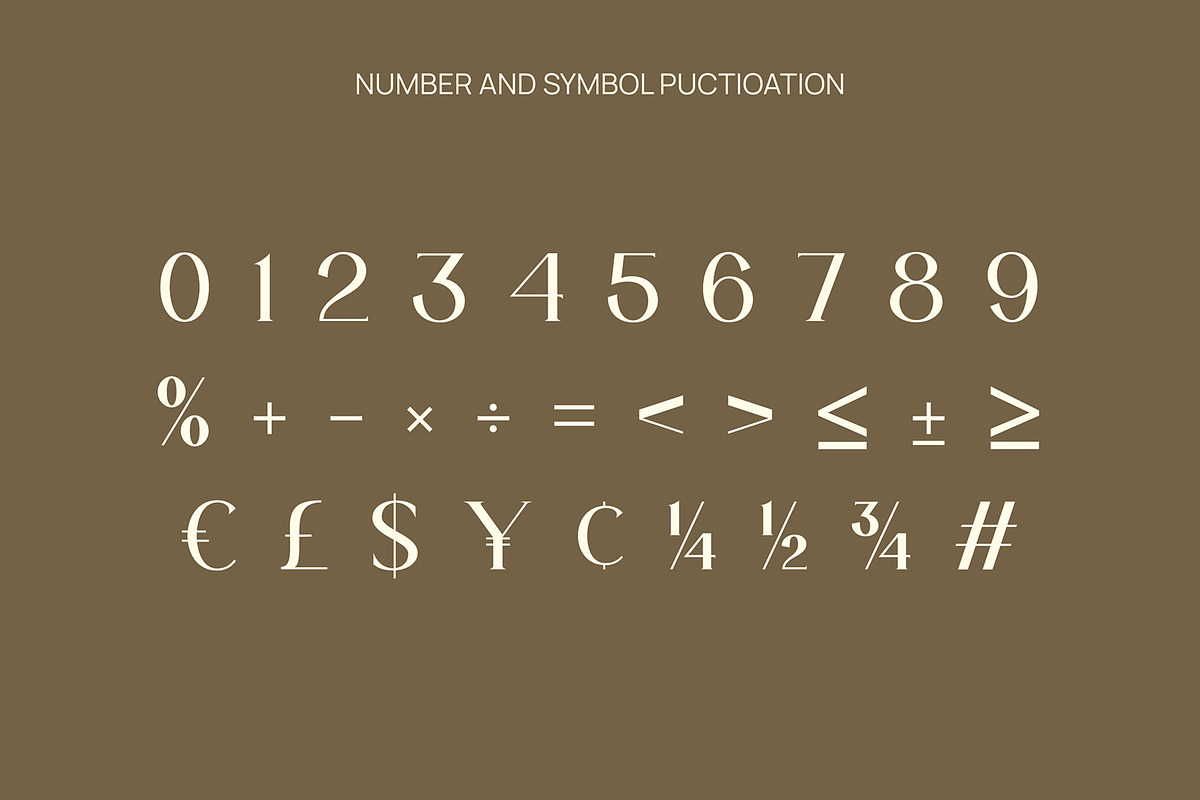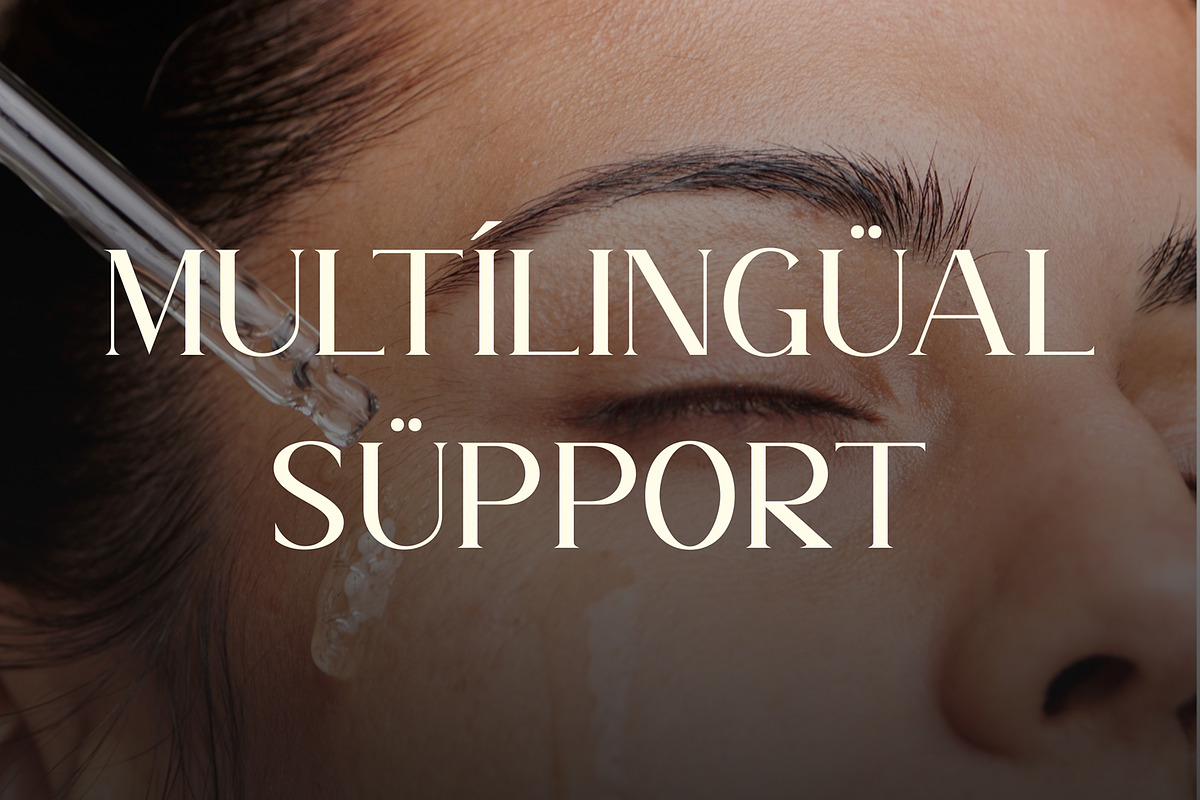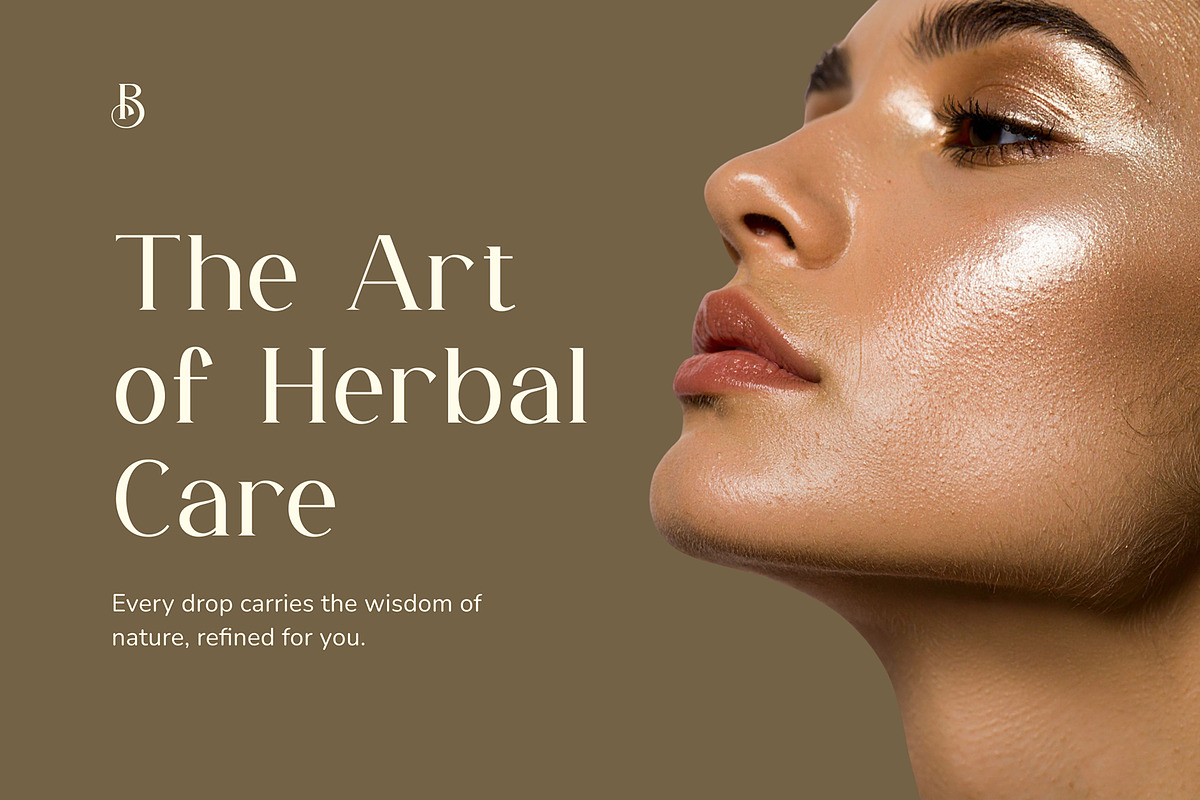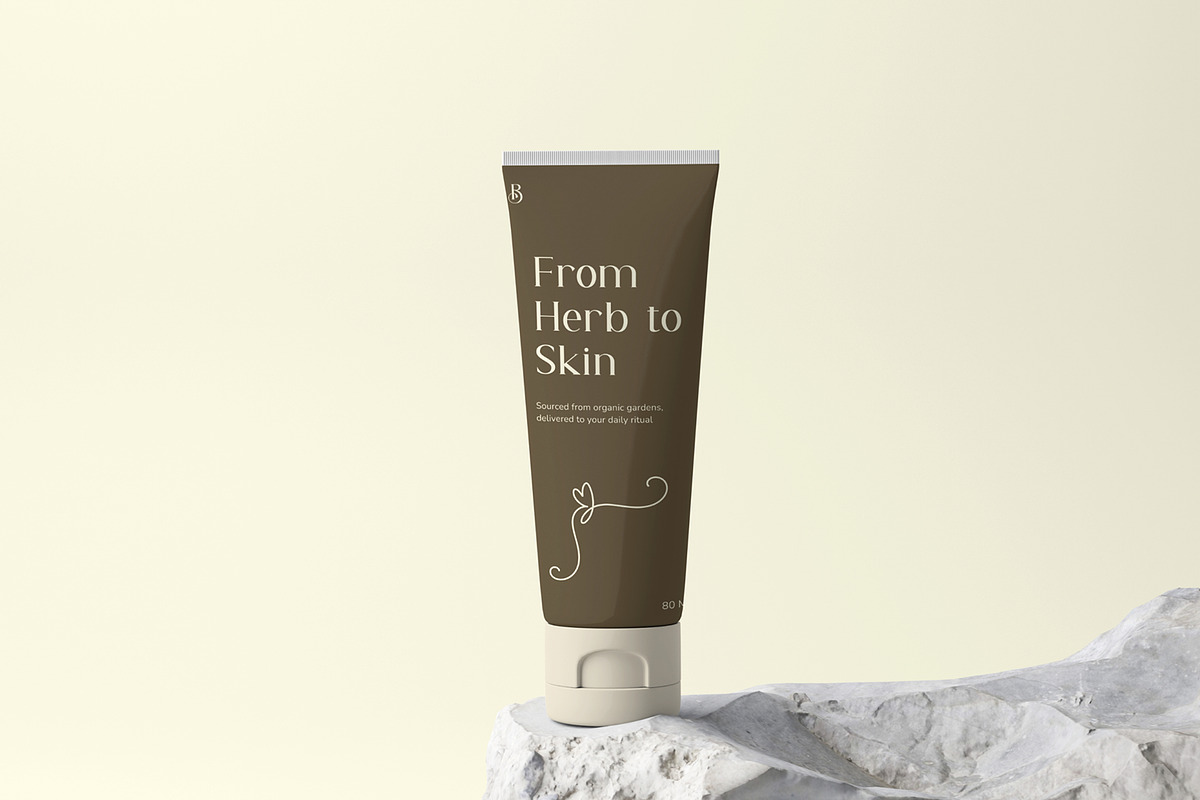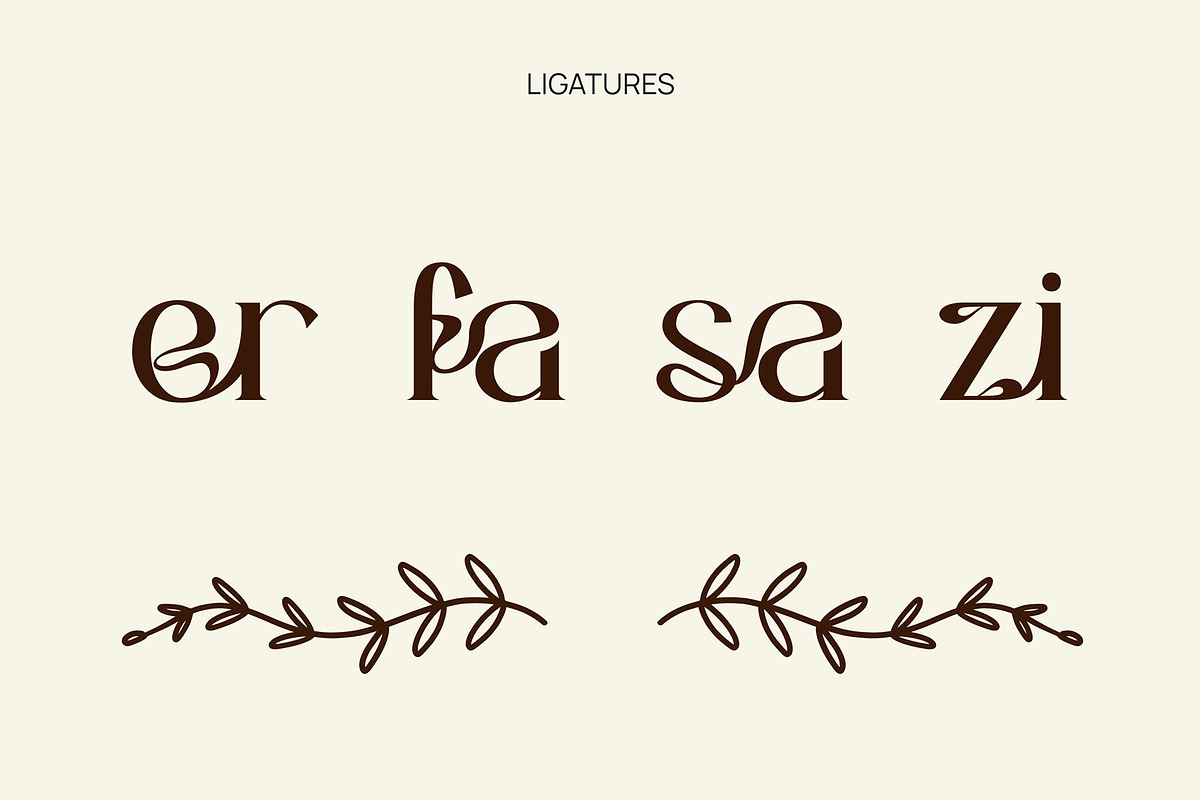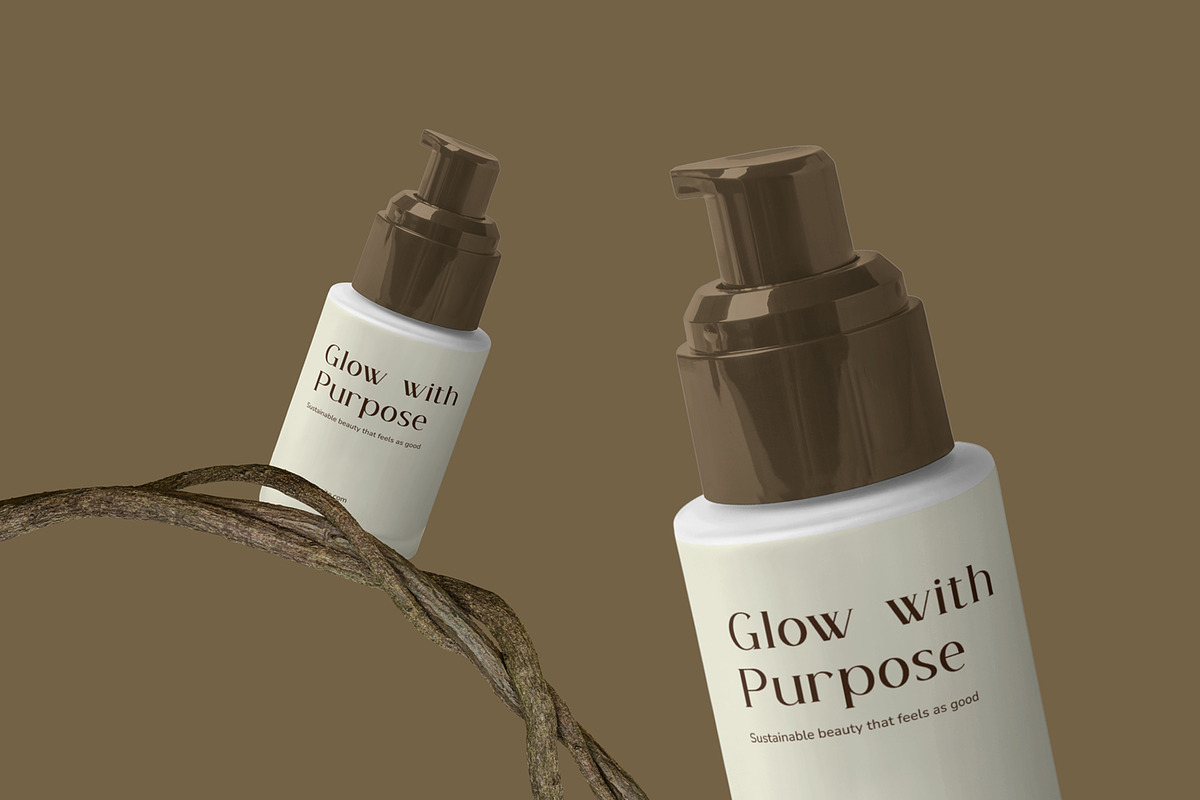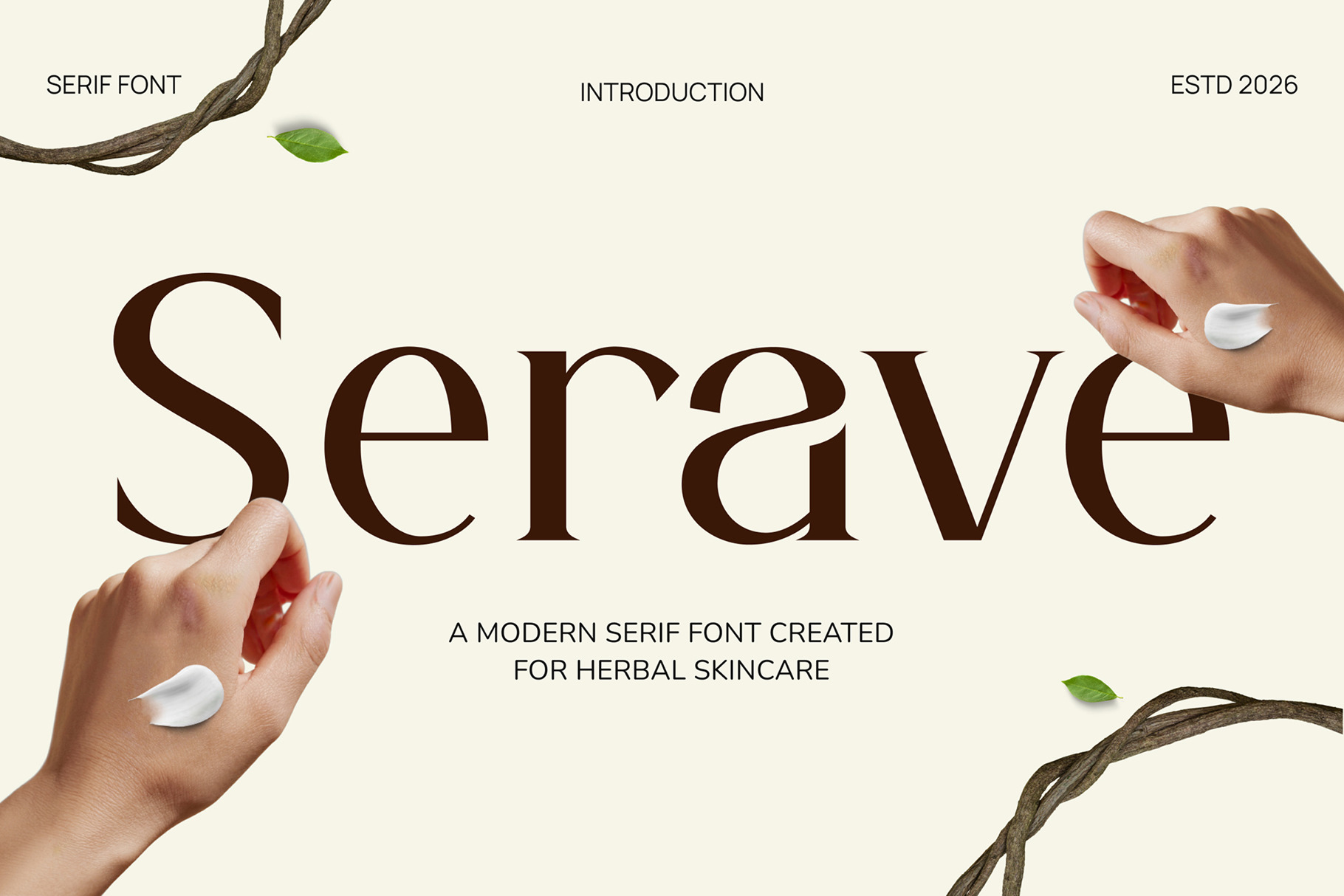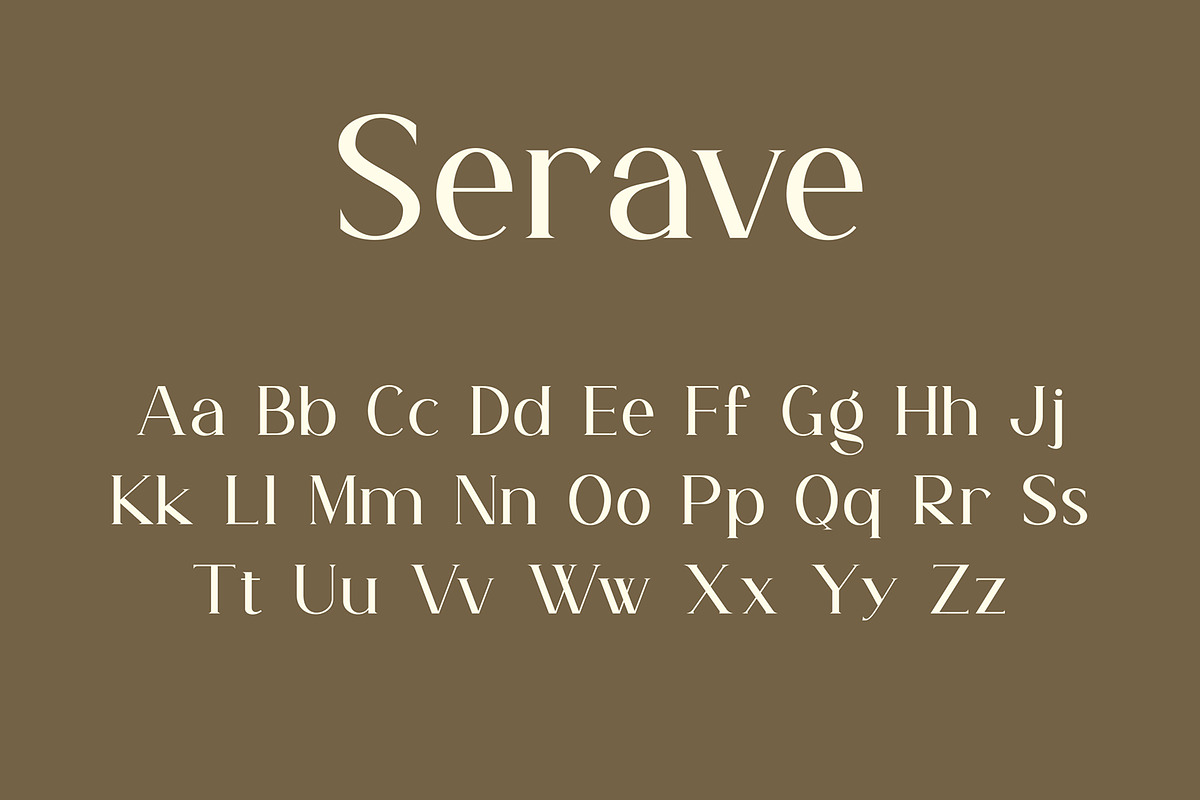
Herbal Skincare - Serave Font
Herbal Skincare – Serave Font is a refined serif typeface designed to bring a natural and sophisticated touch to beauty and wellness projects. With its balanced letterforms, elegant details, and timeless character, Serave creates a clean aesthetic that feels organic, calming, and premium. Perfect for projects that aim to convey purity, nature, wellness, and modern beauty.
* 1 Style: Regular
* Full Character Set: Uppercase, lowercase, numbers, symbols, and punctuation
From natural skincare brands to botanical products, Serave adds a clean and elegant character to every project. Its versatile serif style makes it ideal for logos, product packaging, labels, beauty branding, social media visuals, wellness projects, editorial layouts, cosmetics, and organic product designs.